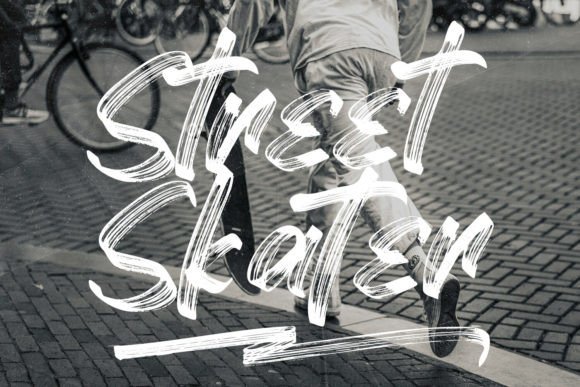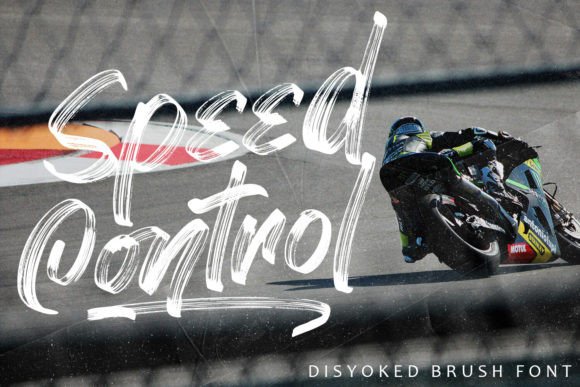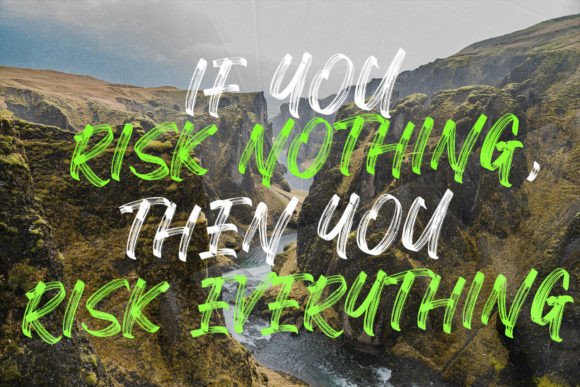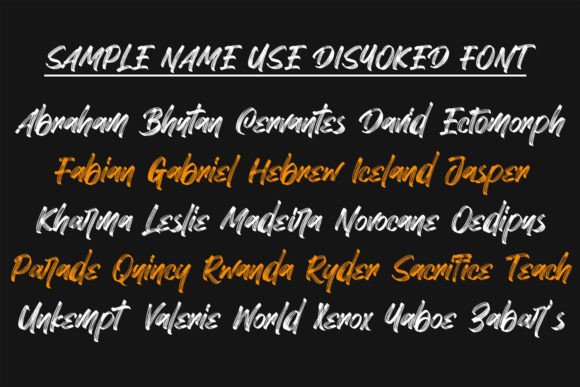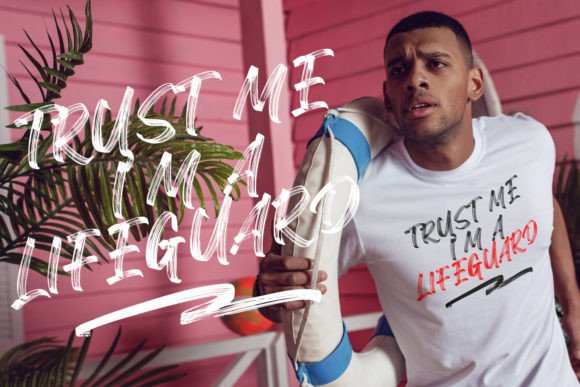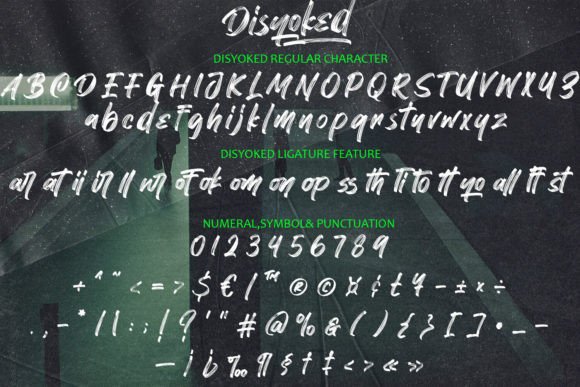
The Birth of a Unique Typographic Expression
Have you ever stared at a blank canvas, trying to bring your creative vision to life, only to be stuck by the monotony of traditional typography? That’s when the magic happens – the moment you stumble upon a font that breaks the mold, speaking directly to your artistic soul. For designers seeking to infuse their work with a touch of personality, the Disyoked Font is an exciting discovery.
This textured brush font is more than just a stylish addition to your design arsenal; it’s a tool that allows you to tap into the raw emotion of brushwork. With its dynamic, handcrafted appearance, Disyoked Font adds depth and character to your typography, making it an invaluable asset for any designer looking to create unique and captivating visual experiences.
Disyoked Font Key Features
- Unique Characteristics: The font features a unique, hand-drawn design with a mix of organic and geometric elements, giving it a distinctive look.
Disyoked Font Review
I recently had the chance to work with the Disyoked font, and I must say, it’s a unique addition to any designer’s toolkit. ✨ One of the things that stands out is its versatility – it’s perfect for use in logos, branding, and even digital interfaces. The font’s bold and modern aesthetic makes it a great choice for projects that need a touch of sophistication.
Another aspect that I appreciate is the Disyoked font’s readability, even at smaller font sizes. This is a crucial factor in digital design, where text is often displayed on smaller screens or in crowded interfaces. The font’s legibility ensures that your message comes across clearly, without sacrificing style.
- ⚠️ Limited language support – the font may not be as effective for text-heavy projects that require support for multiple languages.
- ⚠️ Can be overwhelming when used in large blocks of text – the font’s boldness can become overwhelming if not balanced with other design elements.
Overall, I think the Disyoked font is a great addition to any designer’s arsenal. While it may have some limitations, its unique style and versatility make it a valuable resource for a wide range of projects. With the right balance of design elements, the Disyoked font can add a touch of sophistication and modernity to any project.
Disyoked Font: A Practical Application Guide
Disyoked Font is perfect for creating modern and unique designs. Some common use cases include:
– Creating logos and branding materials
– Designing digital products and interfaces
– Adding a touch of sophistication to business documents and presentations
– Experimenting with creative typography in art and design projects
Alternatives to Disyoked Font for Designers
Great Vibes is a modern, elegant script font ideal for creative and artistic projects. It’s perfect for designing posters, flyers, and other promotional materials that require a touch of sophistication and style.
Compared to Disyoked Font, Great Vibes is more refined and polished, making it suitable for high-end designs. While Disyoked Font has a more casual and playful feel, Great Vibes is better suited for formal and professional projects.
Dancing Script is a beautiful, handwritten font perfect for creating a sense of whimsy and playfulness. It’s ideal for designing invitations, greeting cards, and other materials that require a touch of personality and charm.